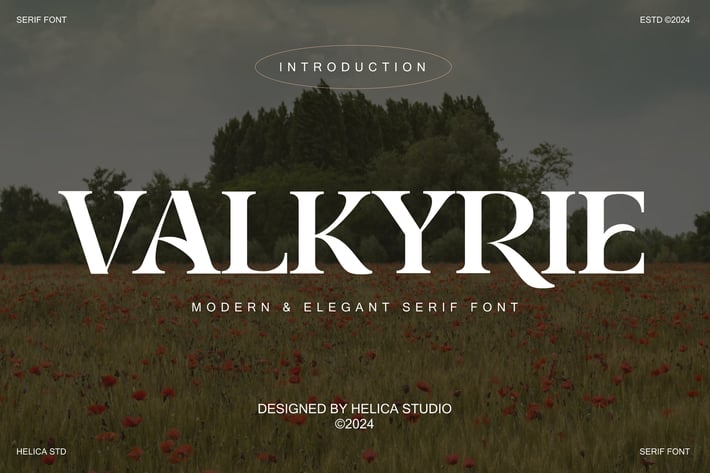
Valkyrie Elegant Serif Font
Valkyrie Elegant Serif Font typeface is perfect for crafting elegant quotes, stunning logos, captivating magazine headers, and so much more.